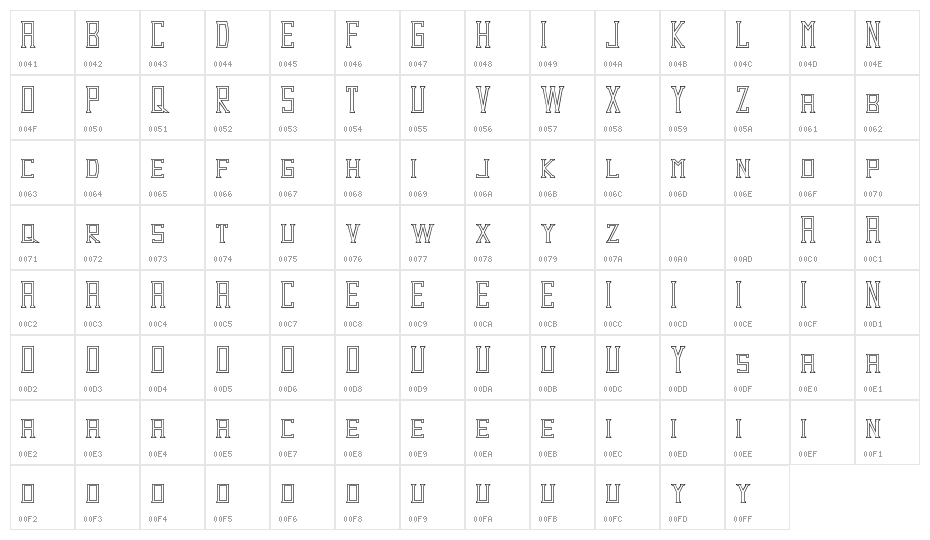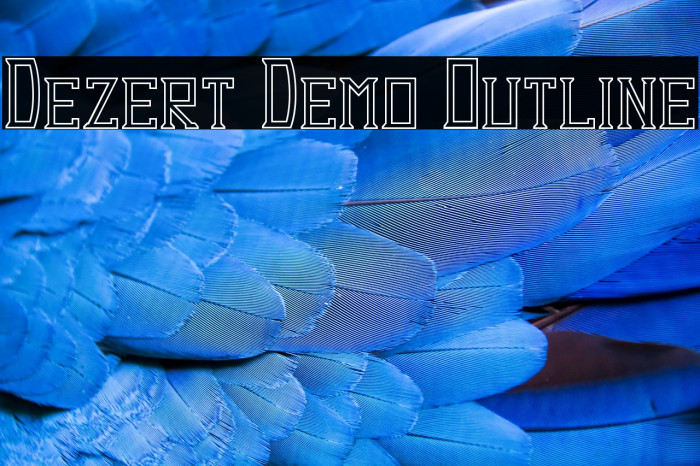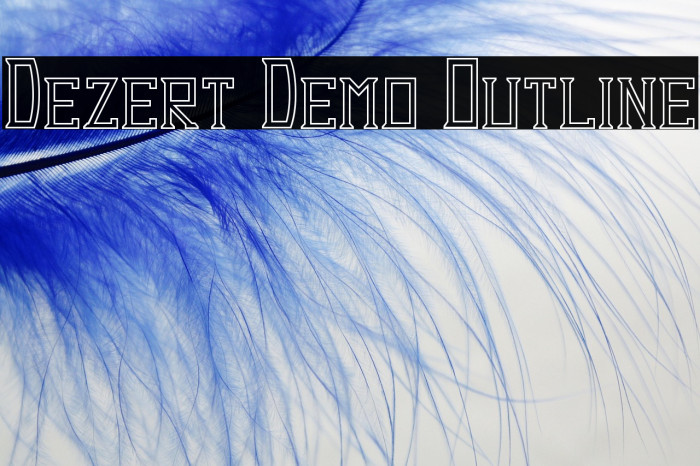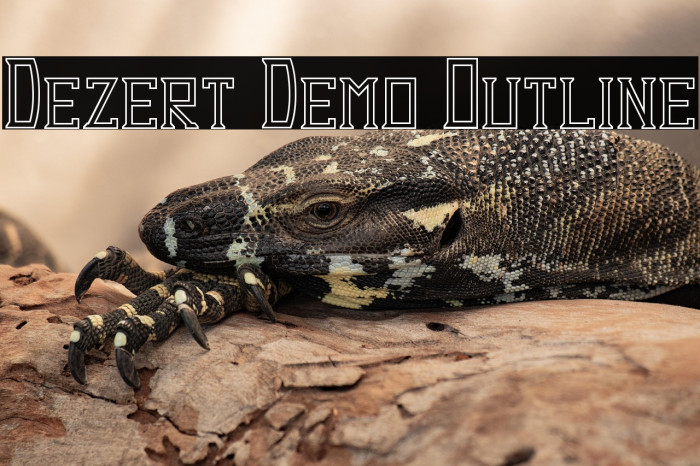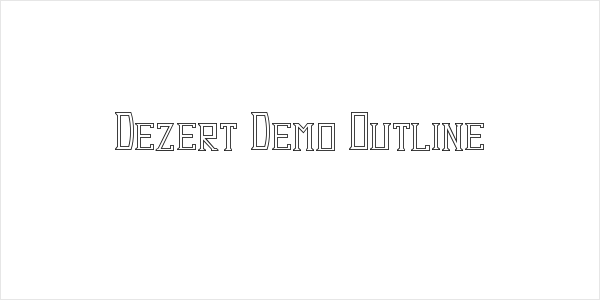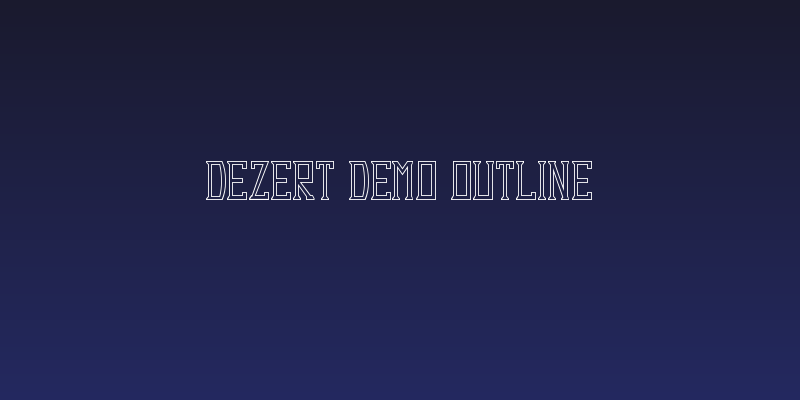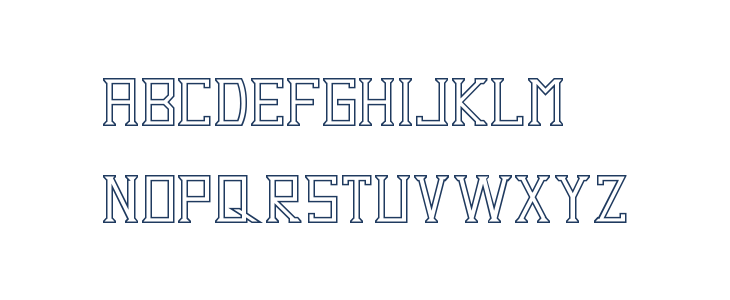
Dezert Demo Outline Font
Dezert Demo Outline Description
This font features a bold, geometric outline style that emphasizes its angular and structured form. Each character is defined by sharp edges and a consistent line thickness, creating a striking and modern appearance. The outlined nature of the font gives it a unique, almost architectural feel, making it stand out in any design. The uppercase letters are uniform in height and width, contributing to a balanced and cohesive look. This font is ideal for projects that require a bold statement or a futuristic aesthetic.